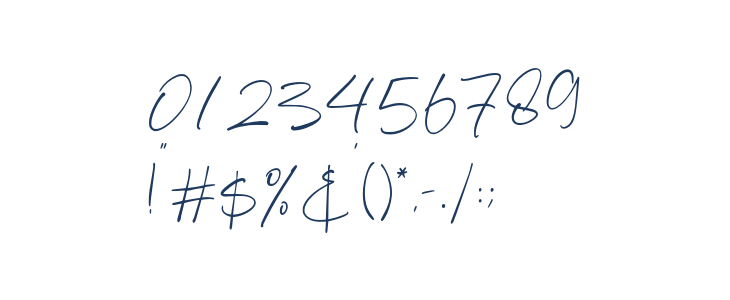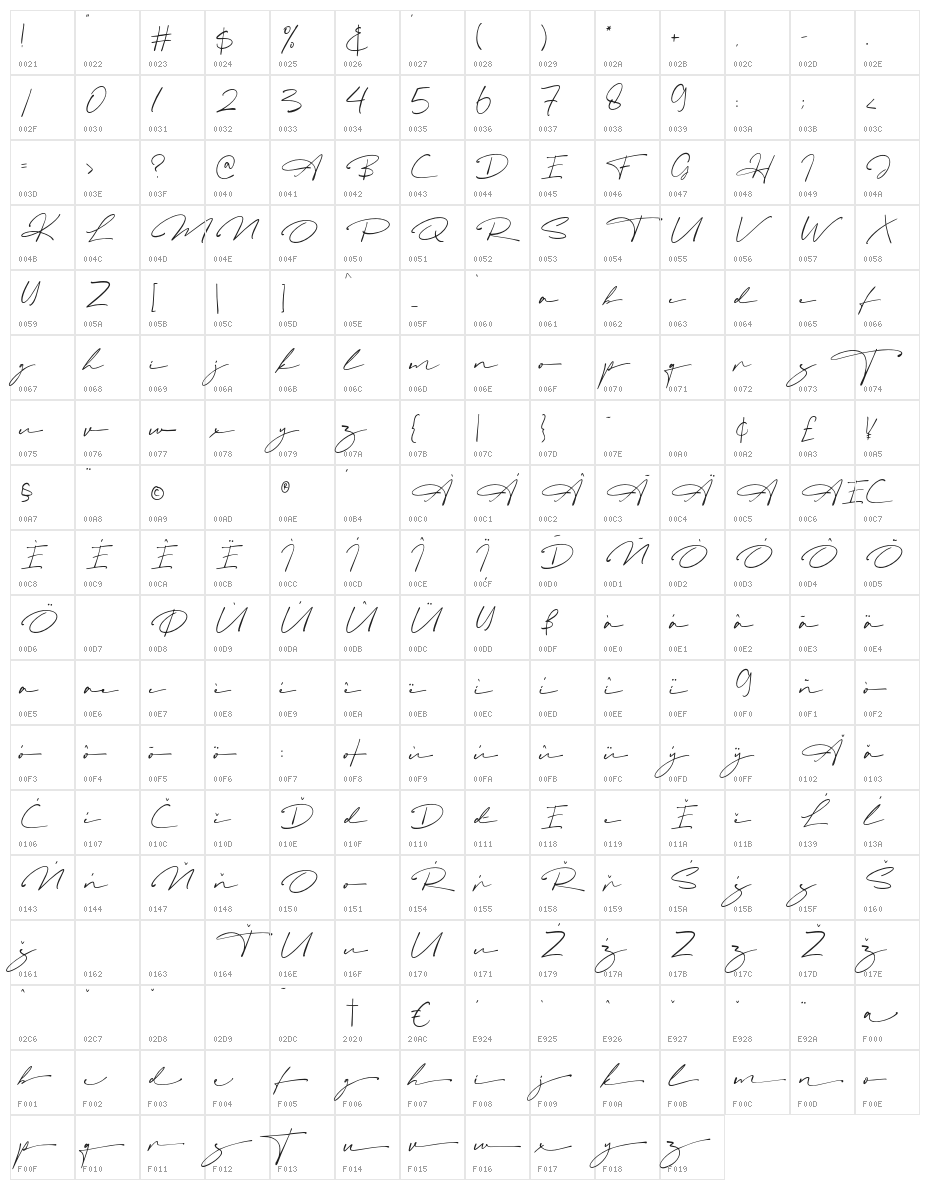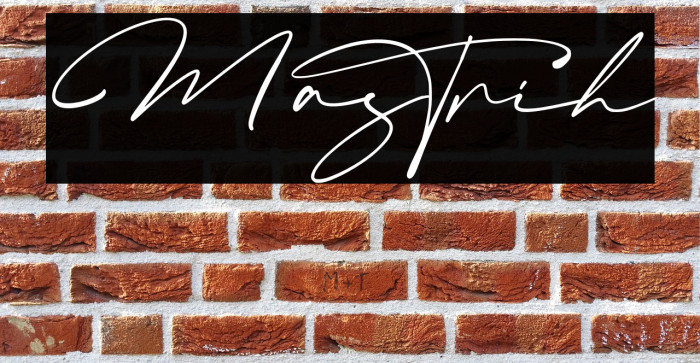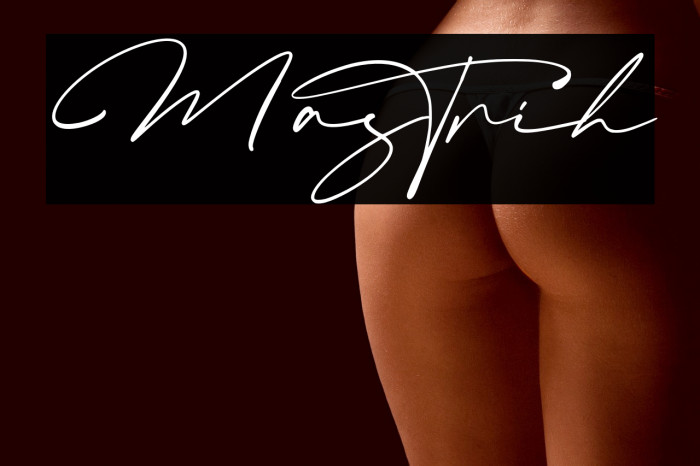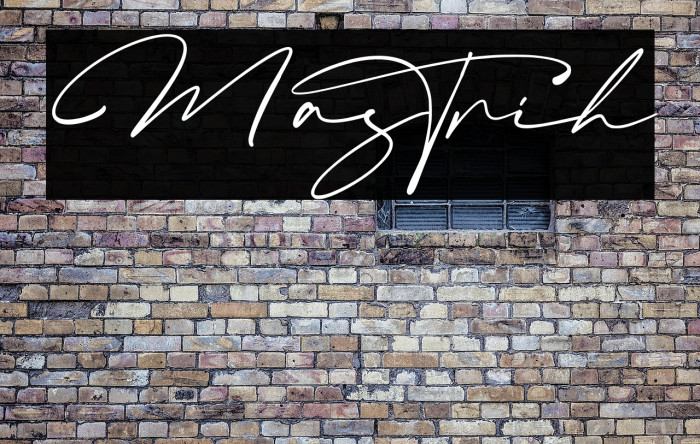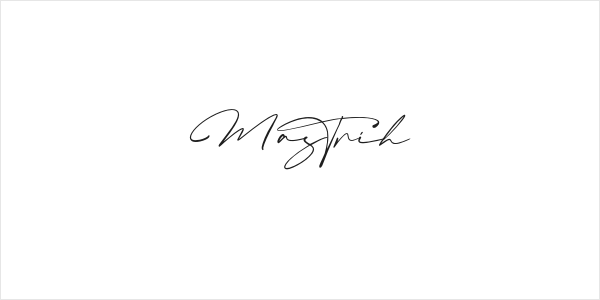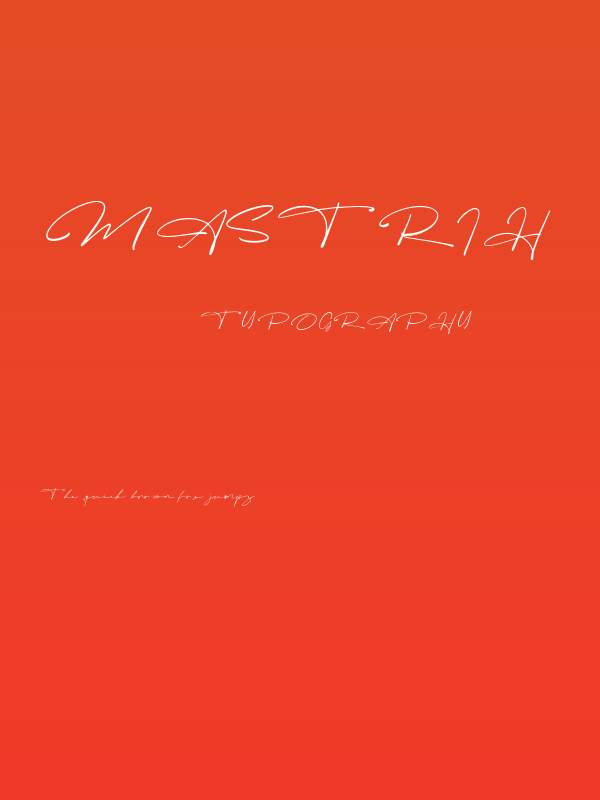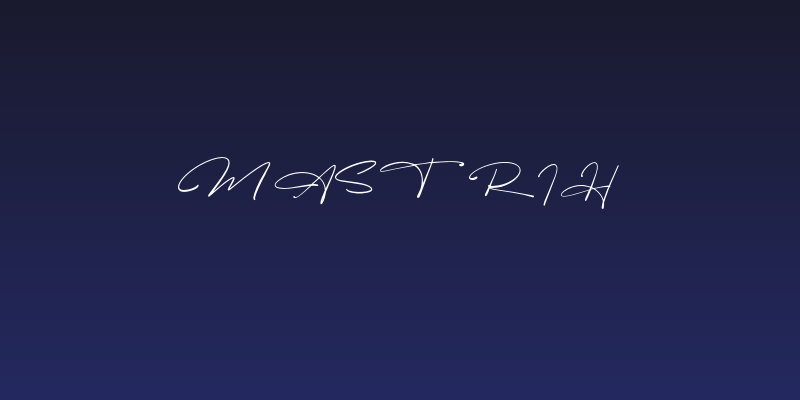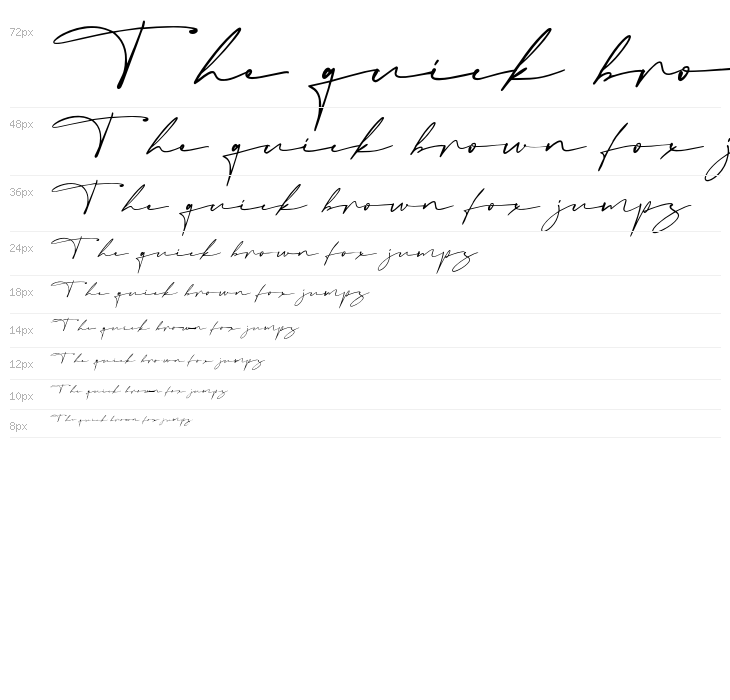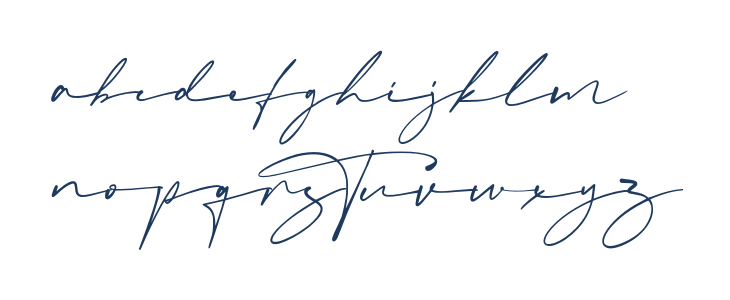
Mastrih Font
Mastrih Description
This font exudes elegance and fluidity, characterized by its cursive, handwritten style. The letters are connected with smooth, flowing strokes, giving it a natural and organic feel. The uppercase letters are slightly more structured, while the lowercase letters maintain a consistent, graceful flow. The numerals and special characters complement the alphabet with their cohesive design, maintaining the same fluidity and elegance. This font is perfect for projects that require a personal touch, such as invitations, greeting cards, or branding materials that aim to convey sophistication and warmth.
| Overall Style | Elegant, Fluid, Organic |
| Use Case | Invitations, Personal Branding, Greeting Cards |
| Proposed Projects | Ideal for wedding invitations, personal branding, greeting cards, and elegant stationery. |